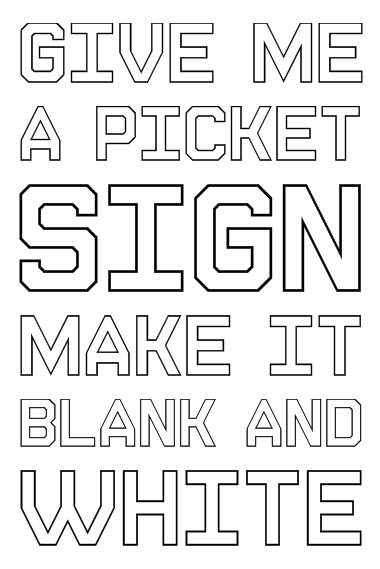
Steel Outline
This is an outline version of Steel, but I had to totally rebuild it because the original grid size was much too small.
And worth the effort -- love that graceful Y. Nice solution to the 4 problem.
Ah 'blank and white'. Brilliant. :)
The sample is actually a song lyric that I thought worked very well for this font.